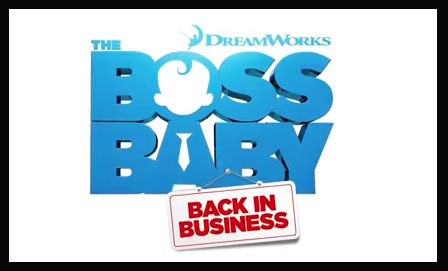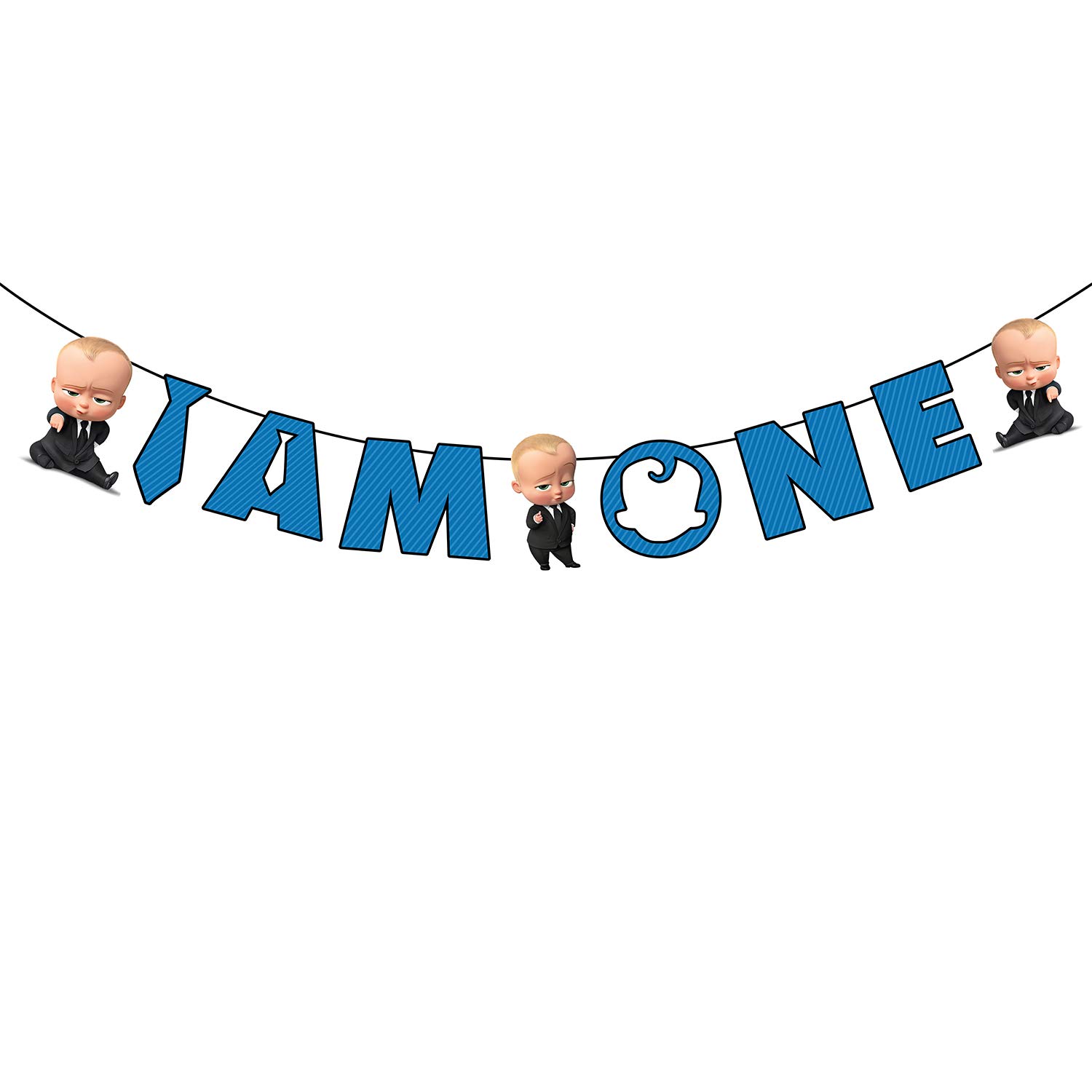
Boss Baby Font Generator Online
The fontcreator has created and released this typeface for the first time during may 2018. Boss baby font svg boss baby letters alphabet svg letters cricut svg font eps dxf svg font for cricut hannaastudio. Boss baby by raiders sharkboy and lavagirl futura pt extrabold futura extrablack futura extra bold otf 700 fut.
Babyboss suggested by schlacter proxima nova suggested by deleted user 972301 2. Some characters you can see in pictures we inserted into this article. The variety comprises their possess specified expressions and aspects however there one component usual among them the precision of typographical preparations.